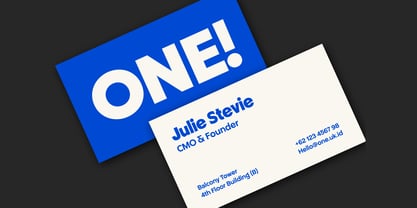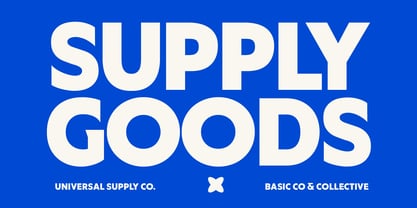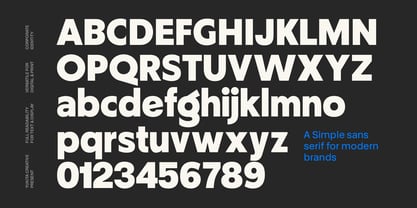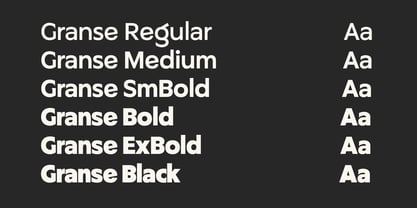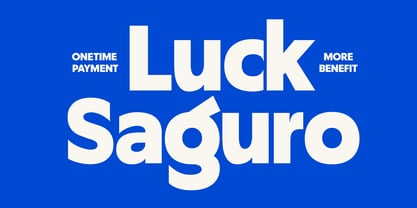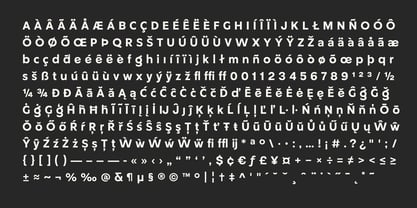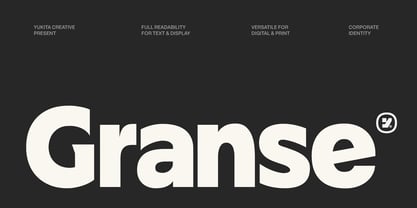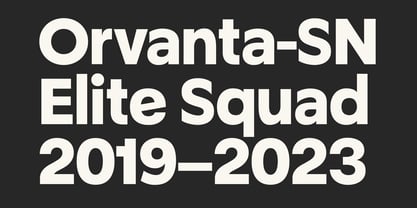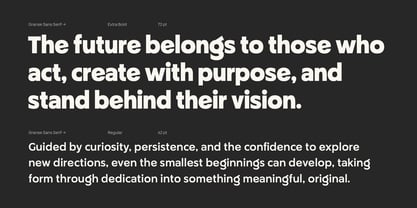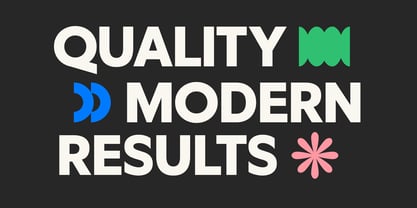
Granse
by Yukita Creative
The Granse Font Family was designed by abdul artega, Yukita Creative and published by Yukita Creative. Granse contains 7 styles and family package options. More about this family
Granse is a modern sans serif font family designed to deliver a strong visual identity through its unique character and distinctive letterforms. Combining clean construction with subtle design details, Granse stands out from conventional sans serif typefaces while maintaining excellent readability and professional appeal.
Created for brands that seek a memorable and recognizable presence, Granse offers a balanced blend of modern simplicity and personality. Its characteristic forms make it especially effective for logos, corporate identity systems, brand guidelines, packaging, advertising, and marketing materials where a unique typographic voice is essential.
Key Features:
- Unique Characteristic Sans Serif Design
- Ideal for Logo & Corporate Identity
- Excellent Readability Across Media
- Suitable for Print & Digital Applications
- Multilingual Support